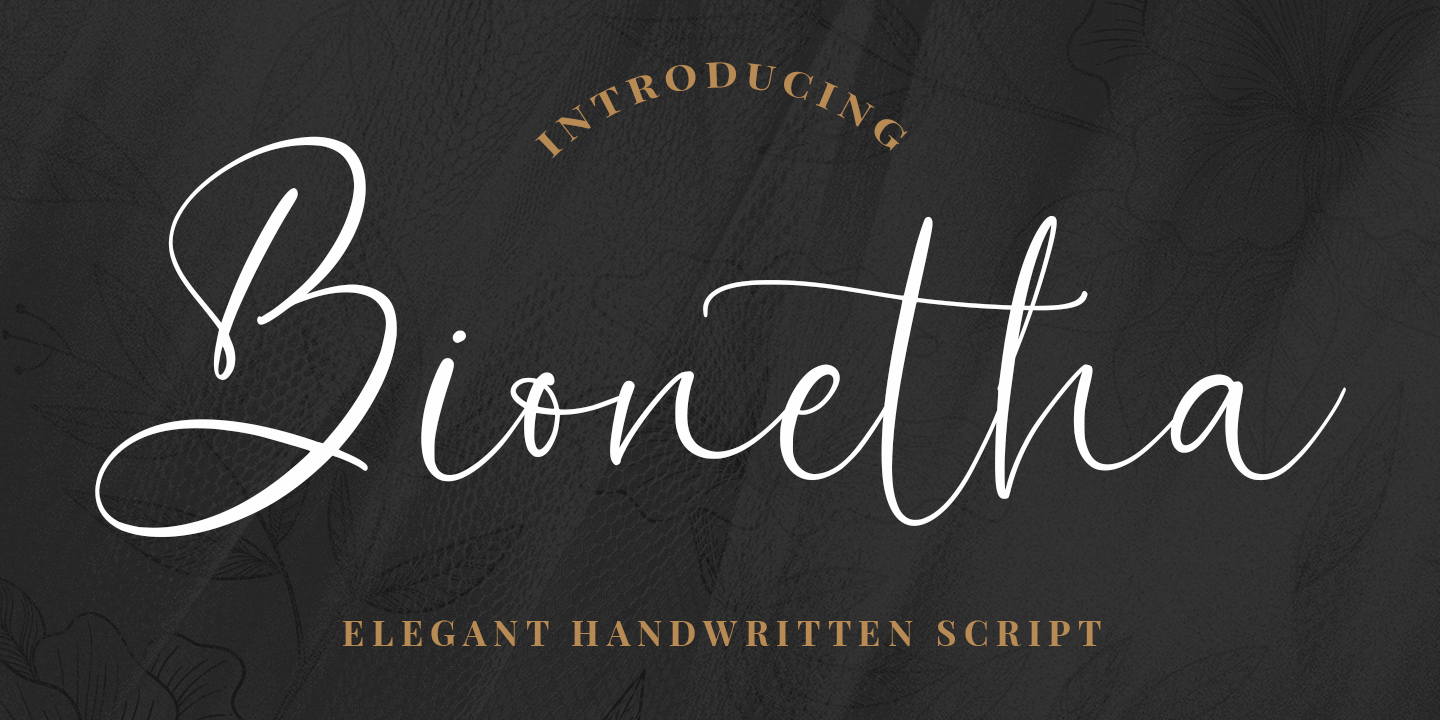
Bionetha Font is perfect for biotechnology company branding, medical research publications, pharmaceutical presentations, healthcare innovation materials, scientific journal layouts, biotech startup logos, genetic research documentation, laboratory equipment packaging, clinical trial communications, and life sciences conference signage. This advanced typeface brings cutting-edge scientific sophistication and biological innovation to any design project celebrating medical breakthroughs and biotechnological excellence.
Bionetha Font is exciting because it embodies the precision and revolutionary potential of modern biotechnology through its refined letterforms that suggest cellular structures and scientific advancement. The font's innovative character and biological appeal communicate research excellence, medical innovation, and life-changing discoveries, making it perfect for organizations pioneering breakthroughs in healthcare and biological sciences.
Bionetha Font family includes multiple weights and styles: Regular, Bold, Light, Medium, Black, Condensed, Extended, Scientific, Medical, and Research variants. Each style maintains the distinctive biotechnological character while providing comprehensive options for creating sophisticated scientific branding and medical communications that celebrate both research precision and therapeutic innovation across various healthcare applications.
Whether you're designing for biotech companies, medical institutions, or scientific organizations, Bionetha Font Free Download delivers the scientific authority that resonates with researchers, healthcare professionals, and biotechnology markets. This innovative typeface combines biological sophistication with contemporary functionality, making it essential for projects requiring both scientific credibility and medical excellence. The font's advanced presence ensures impactful results in biotechnology and life sciences contexts.